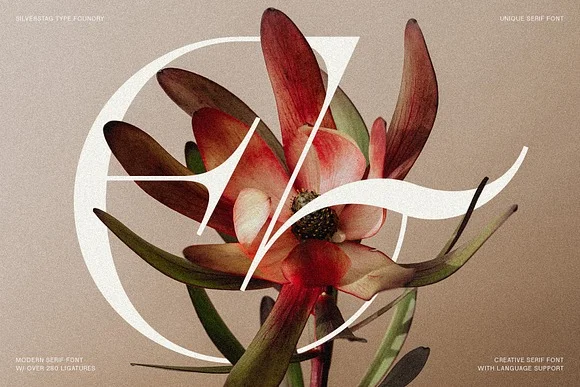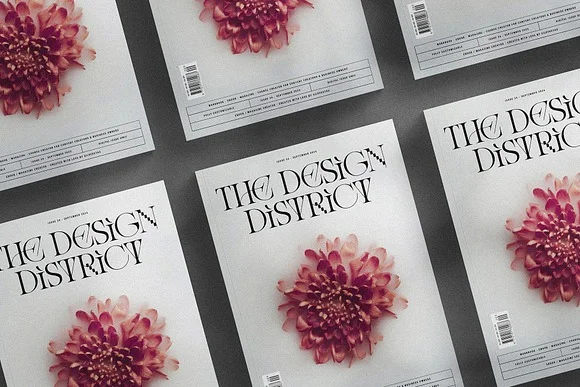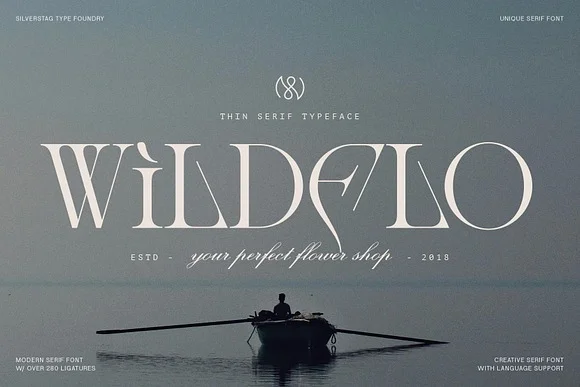
Amelie Fierce Display Serif Font: the unforeseen with Amelie Savage, a cutting-edge show serif that breaks the form with more than 280 remarkable ligatures.
This typeface epitomizes a spellbinding mix of exemplary refinement and state-of-the-art demeanor. Think smooth serifs, effortless bends, and a smidgen of pixelated resistance. A text style requests consideration while holding a demeanor of immortal complexity.